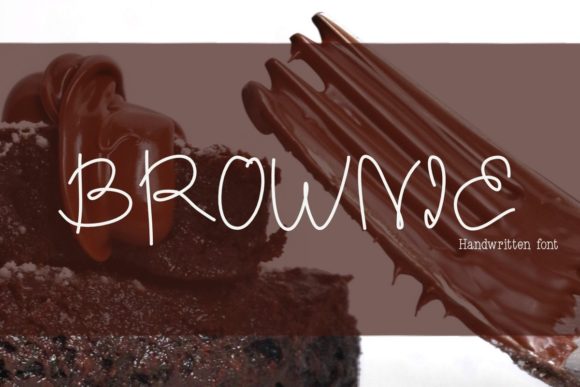
The Brownie Font: A Stylish and Elegant Handwritten Font for Your Creative Projects
I’ll never forget the time I was working on a wedding invitation design project, and I just couldn’t seem to find the perfect font. My client wanted something elegant, yet playful, and I was determined to deliver. That’s when I stumbled upon the Brownie font, and it instantly became my go-to choice. In this article, I’ll share my experience with the Brownie font, its features, and how to make the most of it in your designs.
A Personal Review of Brownie Font
As a designer, I’m always on the lookout for fonts that can elevate my projects. Here’s what I love about the Brownie font:
- ✨ Elegant and stylish: The Brownie font has a sophisticated, handwritten feel that’s perfect for designs that require a touch of class.
- ✅ Versatile: It looks beautiful on a variety of designs, from wedding invitations and thank you cards to logos and greeting cards.
- 💕 Emotional connection: The font’s flowing script and delicate lines evoke a sense of warmth and personality, making it ideal for projects that require a personal touch.
Of course, no font is perfect, and here are a few quirks to keep in mind:
- 🤔 Limited use in body text: While the Brownie font is stunning in headings and titles, it may not be the best choice for body text due to its cursive nature.
- ⚠️ Requires attention to spacing: As with any script font, you’ll need to pay attention to spacing and kerning to ensure that your text looks polished and professional.
The Story Behind Brownie Font
The Brownie font was created with the intention of capturing the essence of elegant, handwritten scripts. Its designer aimed to create a font that would evoke a sense of warmth and personality, while still maintaining a level of sophistication and class. The result is a beautiful, stylish font that’s perfect for a wide range of creative projects.
| What type of projects is the Brownie font best suited for? | The Brownie font is ideal for designs that require a touch of elegance and personality, such as wedding invitations, thank you cards, logos, and greeting cards. |